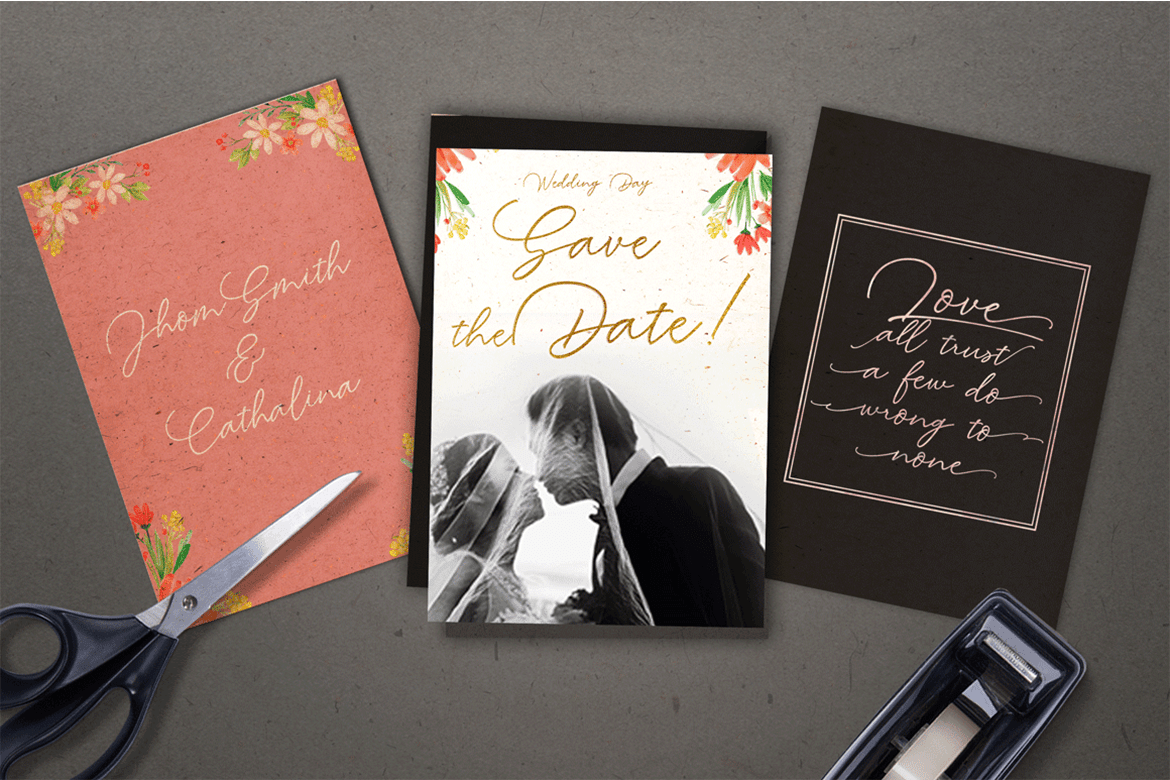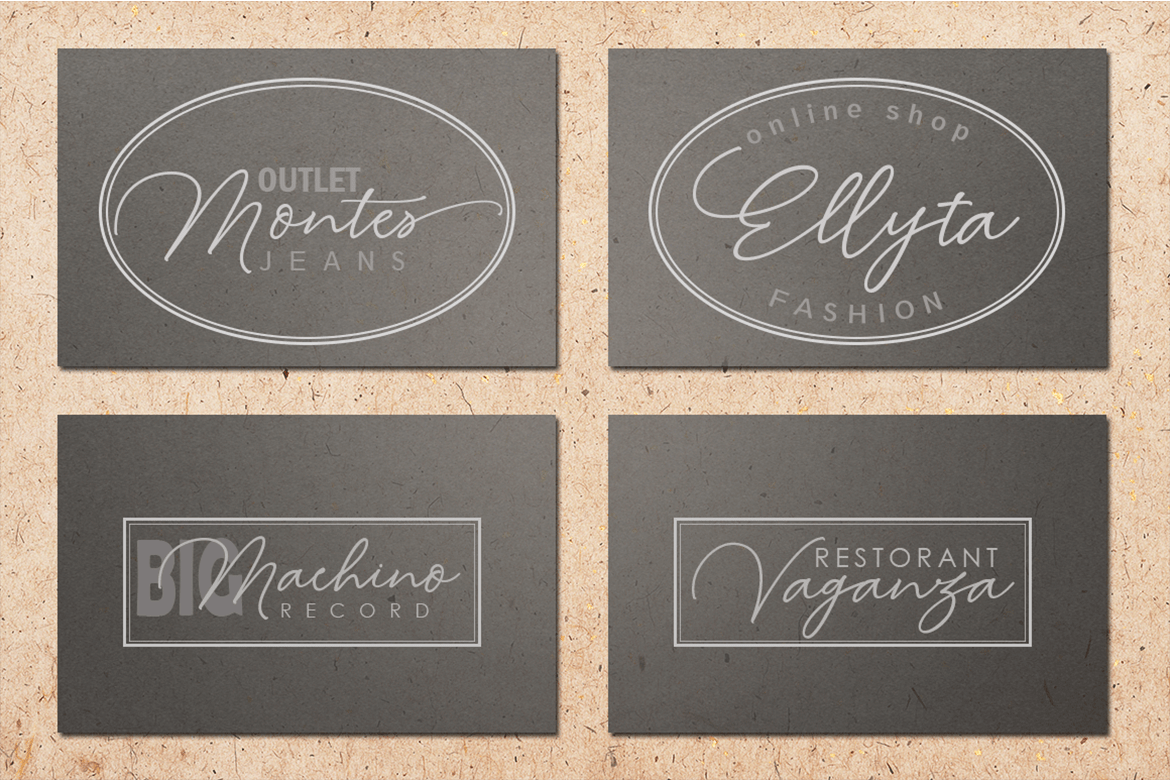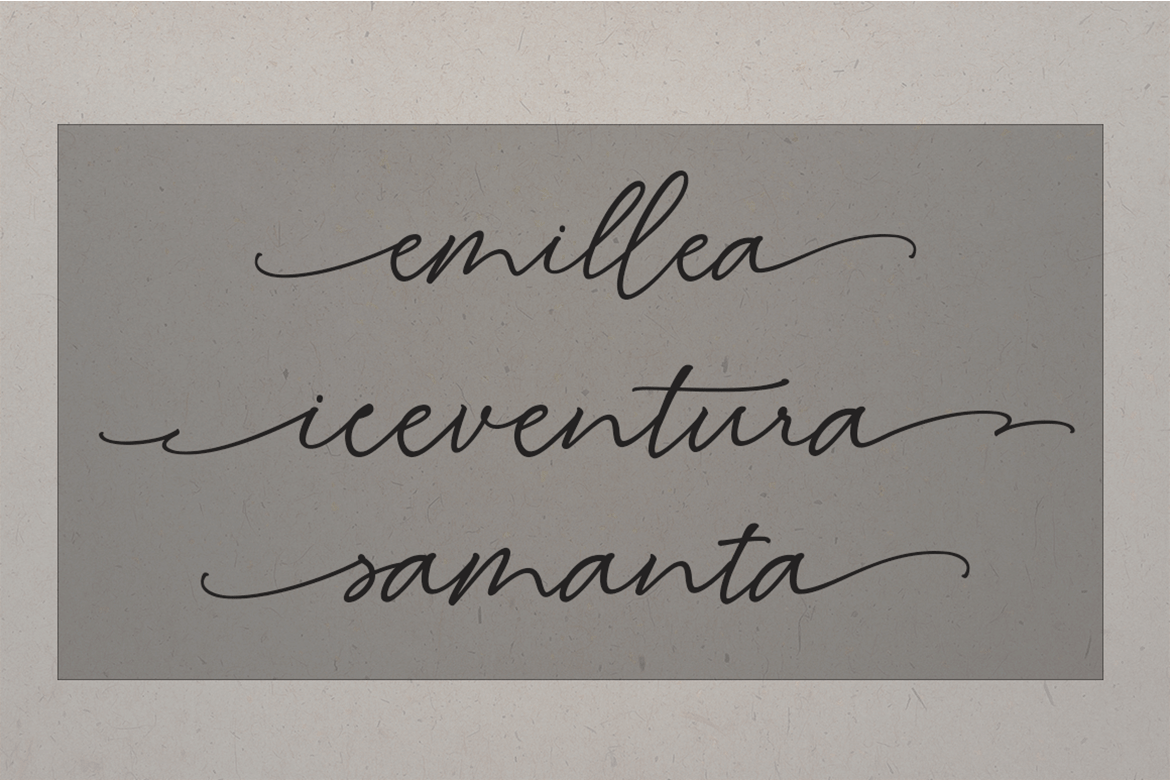
Britany
Britany is a script font that has a distinctive handwriting, it is perfect for making certain labels and business events and you can use them for unique works.
Alternate characters in the Britany font are divided into OpenType features such as Stylistic Alternate, Stylistic Sets, Swash and Ligature. OpenType features can be accessed by using OpenType smart programs such as Adobe Illustrator and Adobe InDesign. can also be accessed through the character map
Can be used for various purposes.such as headings, logos, wedding invitation, t-shirt, letterhead, signage, lable, news, posters, badges etc. To enable the OpenType Stylistic alternates, you need a program that supports OpenType features such as Adobe Illustrator CS, Adobe Indesign & CorelDraw X6-X7.